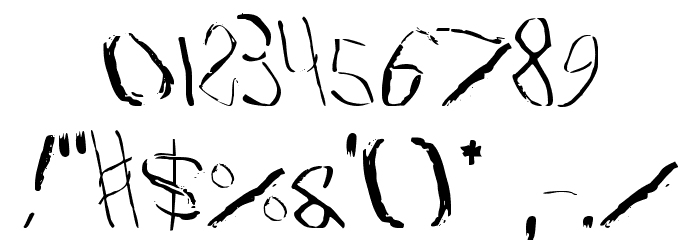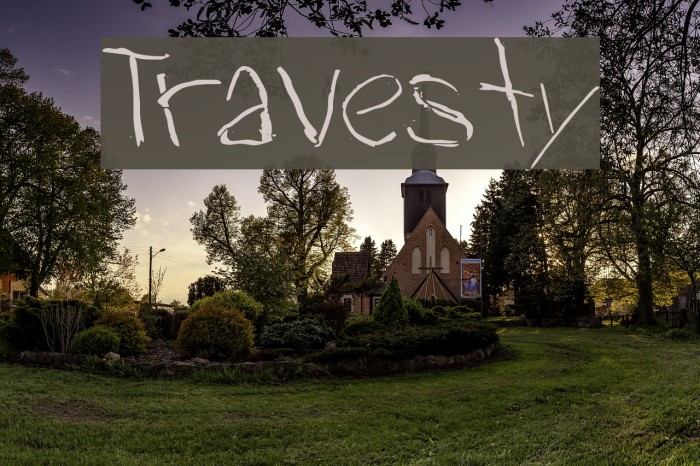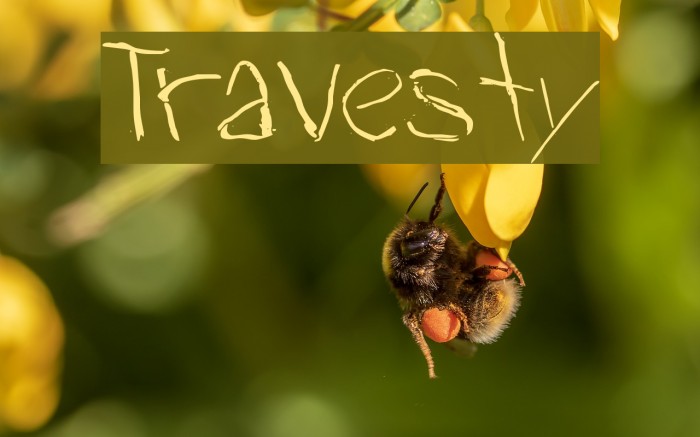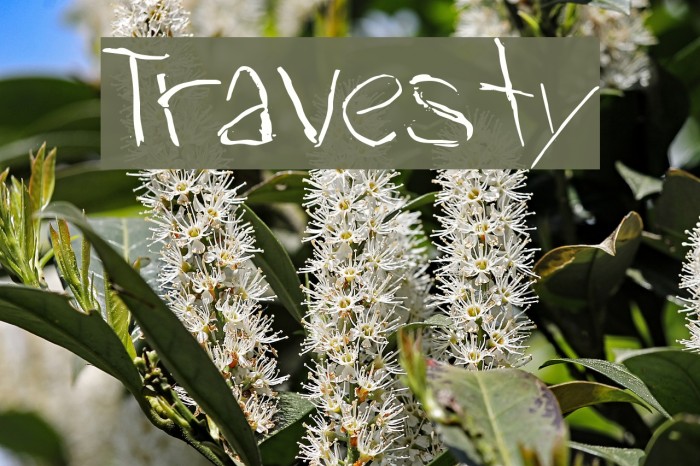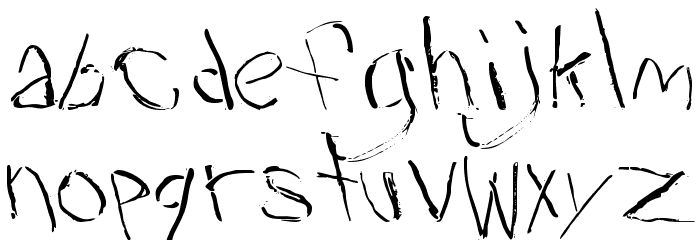
Travesty Font
Travesty Description
This font features a highly expressive and artistic style, characterized by its rough, hand-drawn appearance. The strokes are irregular and exhibit a distressed texture, giving each character a unique and dynamic look. The uppercase and lowercase letters maintain a consistent style, with exaggerated curves and angles that create a sense of movement and energy. The numerals and special characters follow the same aesthetic, ensuring a cohesive overall appearance. This font is ideal for projects that require a bold, unconventional look, such as artistic posters, album covers, or creative branding.
An expressive, hand-drawn font with a rough, distressed texture from Quirky fonts.
- Proposed Projects: Artistic posters, album covers, creative branding, and unconventional design projects.